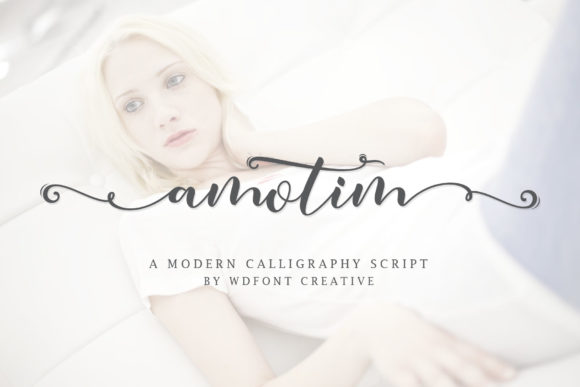
The Amotim Font: A Fresh Breeze for Your Creative Projects
I’ll never forget the moment I stumbled upon the perfect font for a project I was working on. I had been searching for what felt like hours, trying out font after font, but nothing seemed quite right. That was until I discovered Amotim – a fresh, light, and breezy handwritten font with a romantic feel that completely transformed my design. In this article, I’ll share my experience with Amotim, its unique charm, and how you can make the most of it in your creative projects.
An Honest Review of Amotim
What I Love About Amotim ✨
• ✅ Its unique, handwritten feel that adds a touch of personality to any project
• ✅ The romantic and breezy vibe that evokes feelings of warmth and approachability
• ✅ The versatility of Amotim, which makes it suitable for a wide range of creative projects, from branding and packaging to invitations and social media graphics
• ✅ The font’s excellent legibility, even at smaller sizes
• ⚠️ Some users may find the font a bit too light or delicate for certain applications, such as large-format designs or headlines
• ⚠️ As with any handwritten font, there may be some variation in letterforms and spacing, which can affect consistency in certain designs
4. Experiment with OpenType features, such as stylistic alternates and glyphs, to add more personality to your text
The Story Behind Amotim
Amotim was designed with the intention of creating a font that would evoke feelings of warmth and approachability. The designer wanted to create a font that would be perfect for creative projects that require a personal touch, such as invitations, branding, and social media graphics. With its unique charm and romantic feel, Amotim has become a popular choice among designers and crafters.
Q: What is Amotim?
Amotim is a fresh, light, and breezy handwritten font with a romantic feel, perfect for creative projects that require a personal touch.
Q: Is Amotim suitable for large-format designs?
While Amotim can be used for large-format designs, it may not be the best choice for very large headlines or titles, as it can appear too light or delicate.
Q: Does Amotim support OpenType features?
Yes, Amotim supports OpenType features, such as stylistic alternates, ligatures, and glyphs, which can be accessed in compatible software, such as Adobe Photoshop and Illustrator.